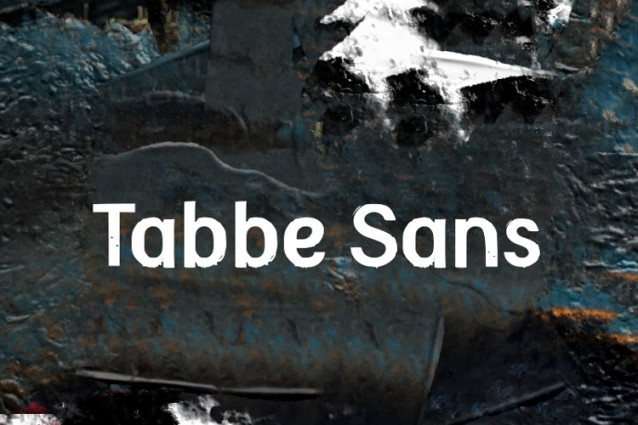
Tabbe Font
Tabbe Font, Suitable for any design needs : logo, branding, modern advertising design, logos, poster quote, book / cover Title, editorial design, website / blog, card, t-shirts, and any hand-lettered needs.